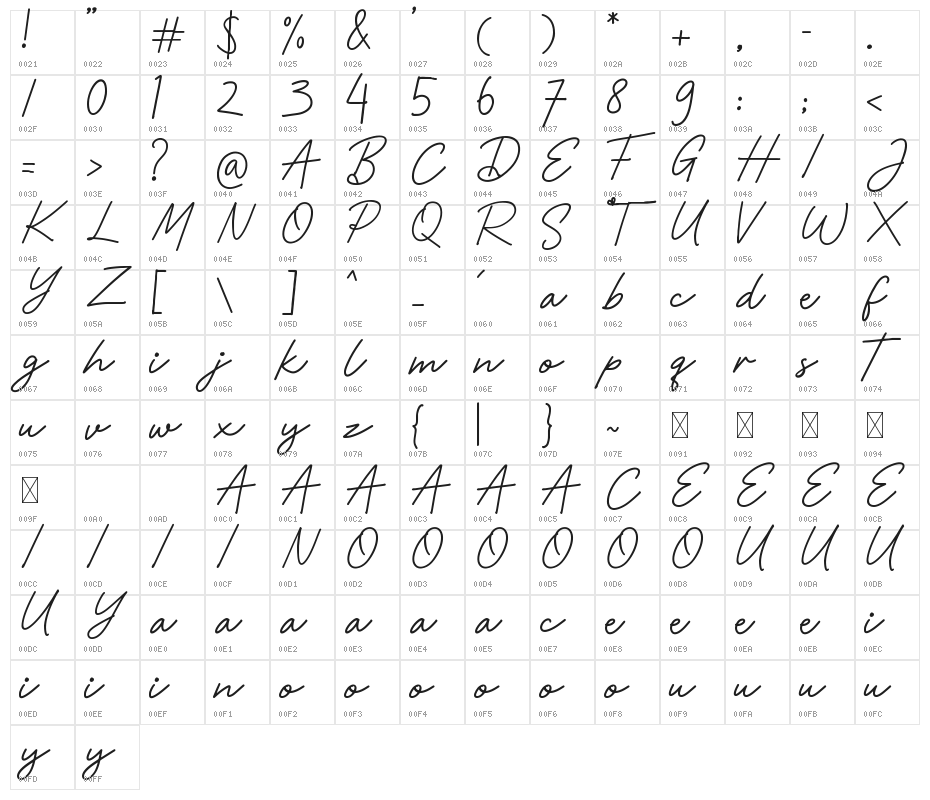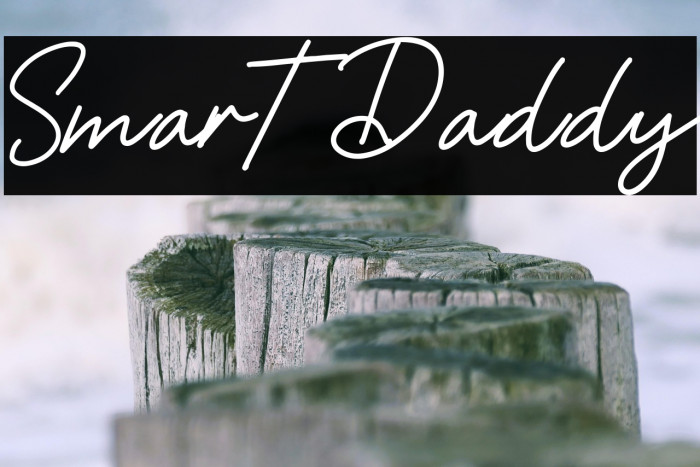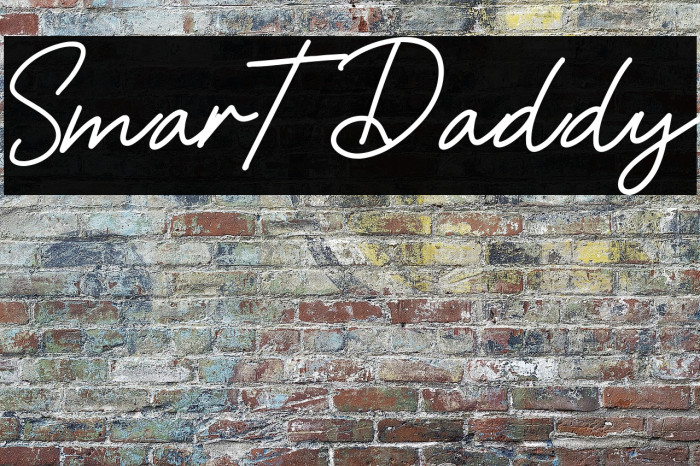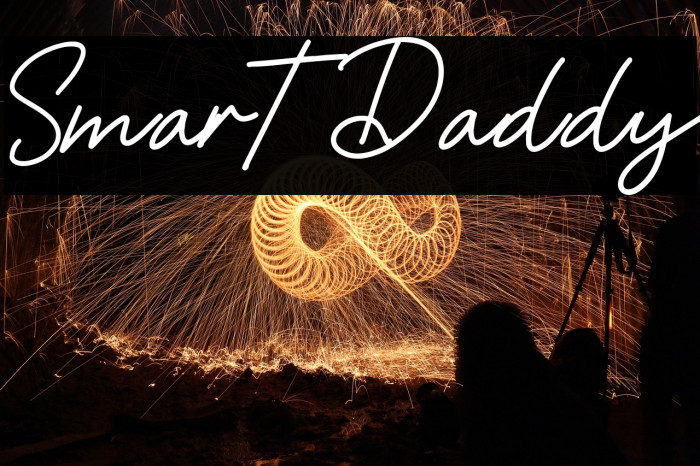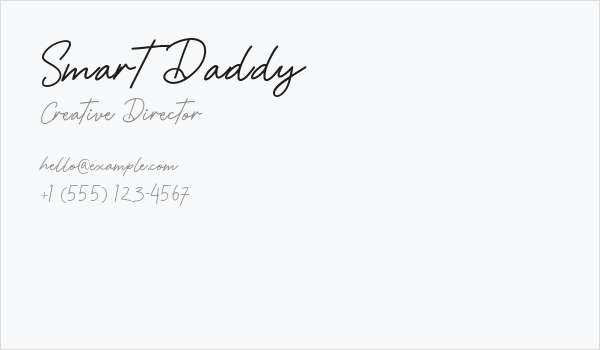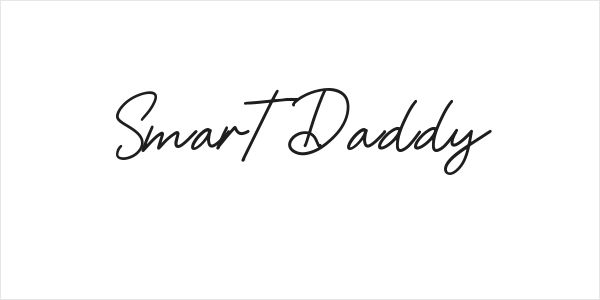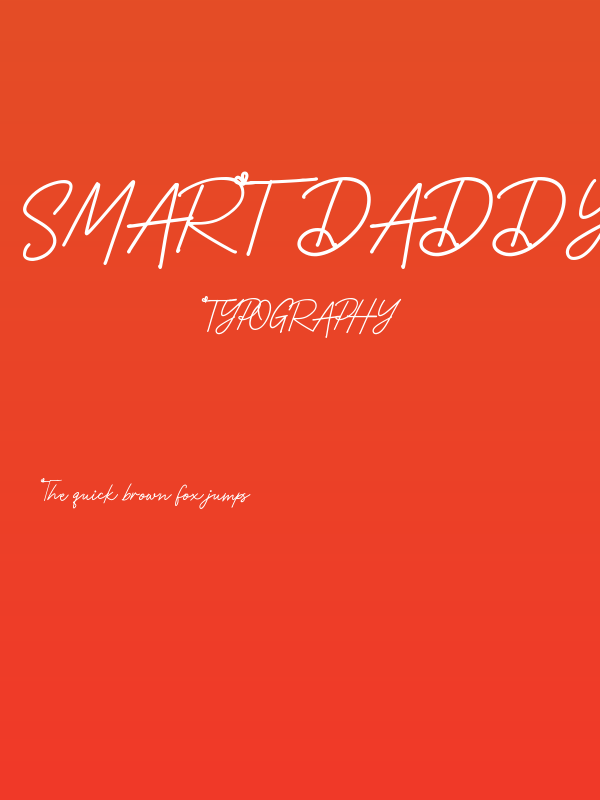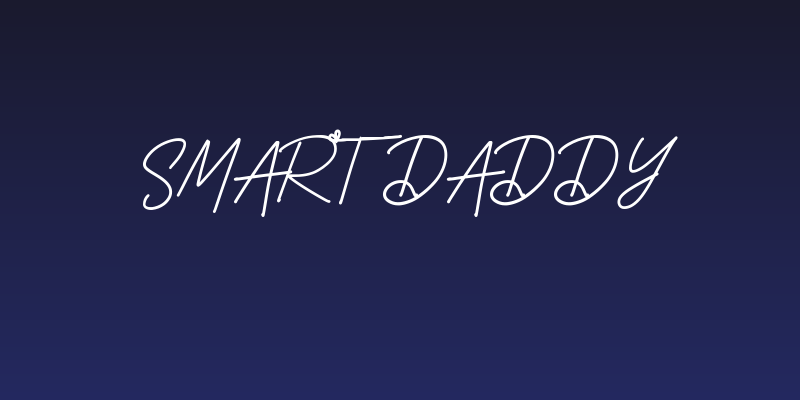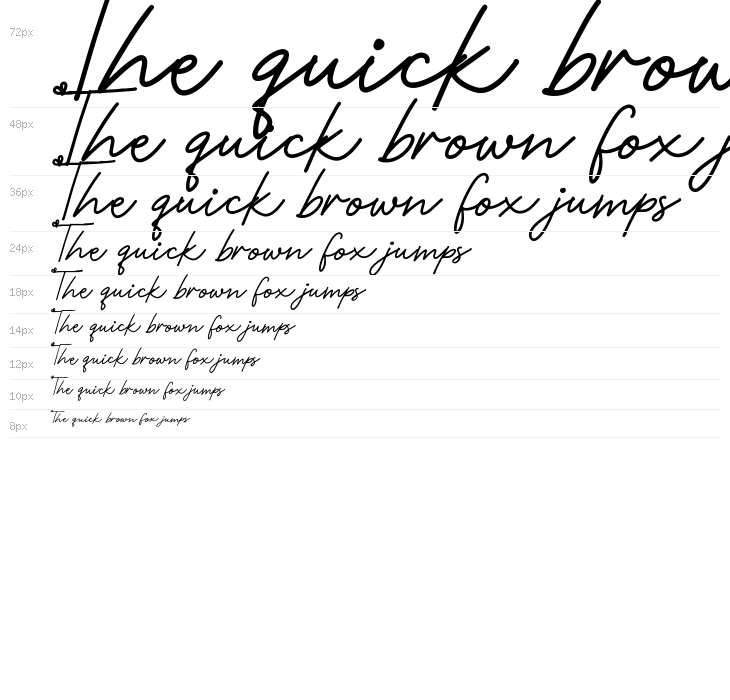
Smart Daddy Font
Smart Daddy Description
This font features a lively and dynamic script style, characterized by its fluid, cursive strokes that mimic natural handwriting. The uppercase letters are bold and slightly slanted, giving a sense of movement and elegance. The lowercase letters maintain a consistent flow, with smooth connections between characters, enhancing readability. The numerals are distinct and clear, matching the overall cursive theme. Special characters are creatively integrated, maintaining the font's cohesive style. This font exudes a personal and informal charm, making it suitable for projects that require a touch of personality and warmth.
| Use Case | Logos, Headlines, Personal projects |
| Proposed Projects | Ideal for invitations, greeting cards, personal branding, and creative projects that require a handwritten feel. |